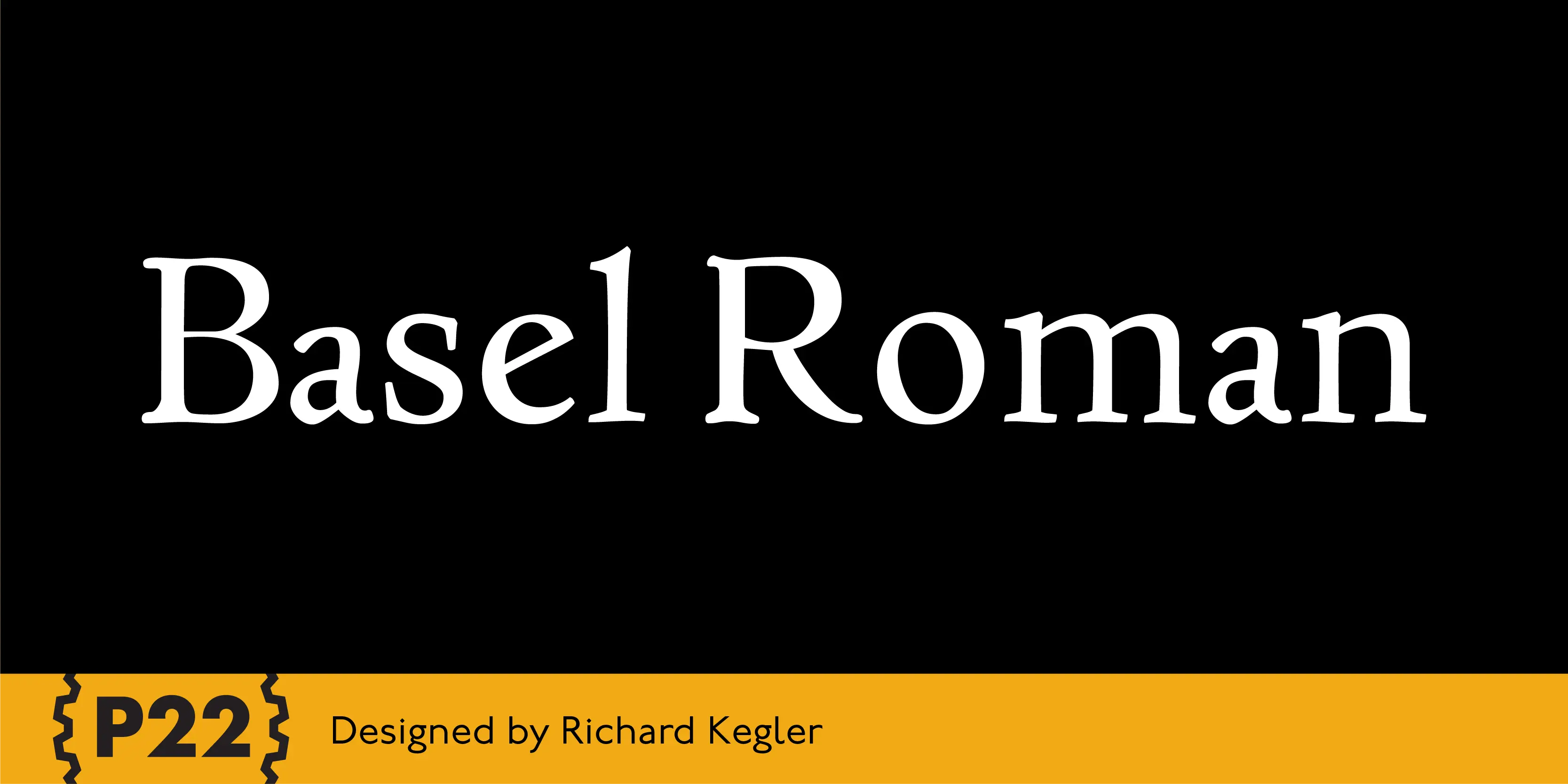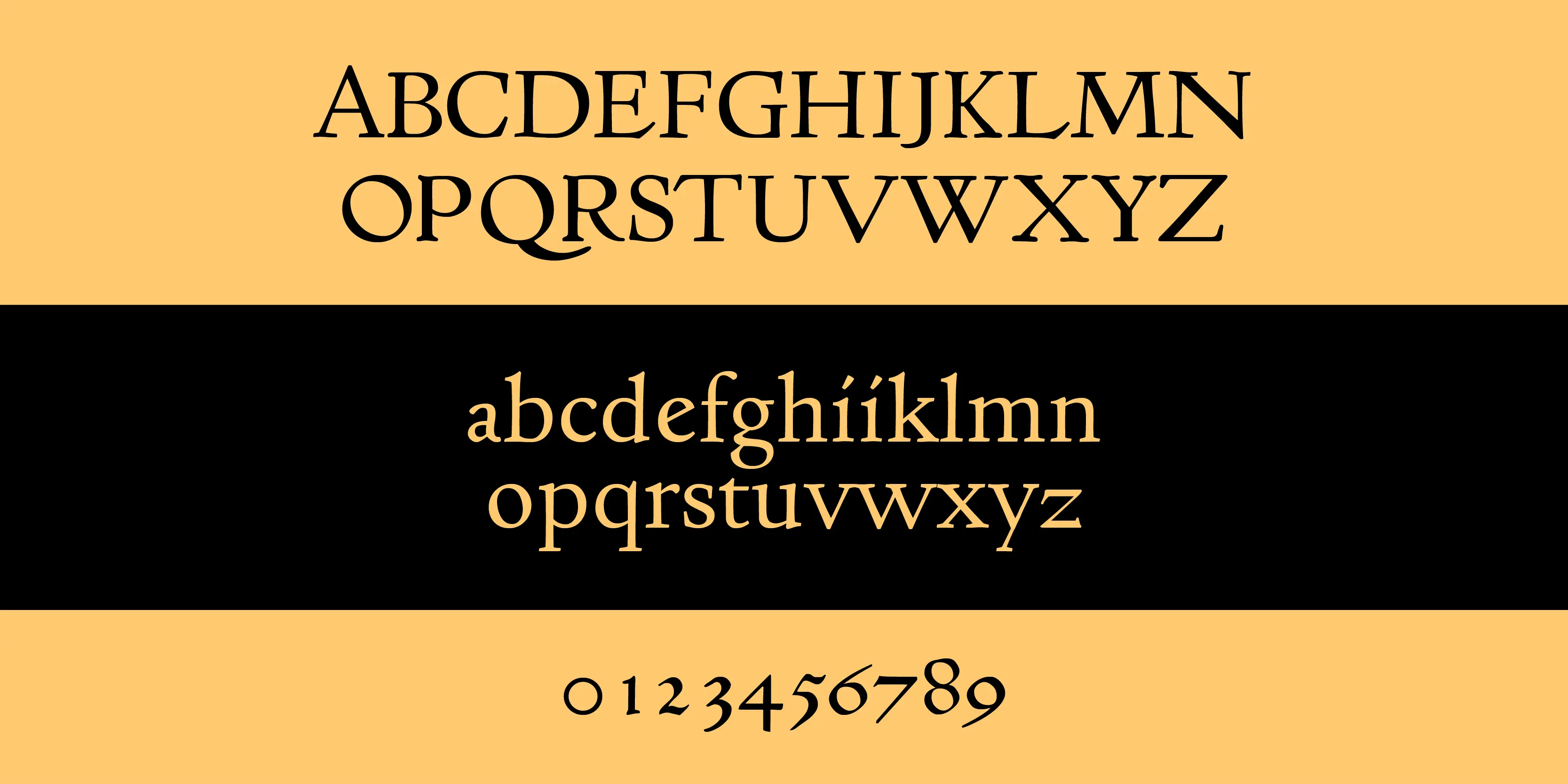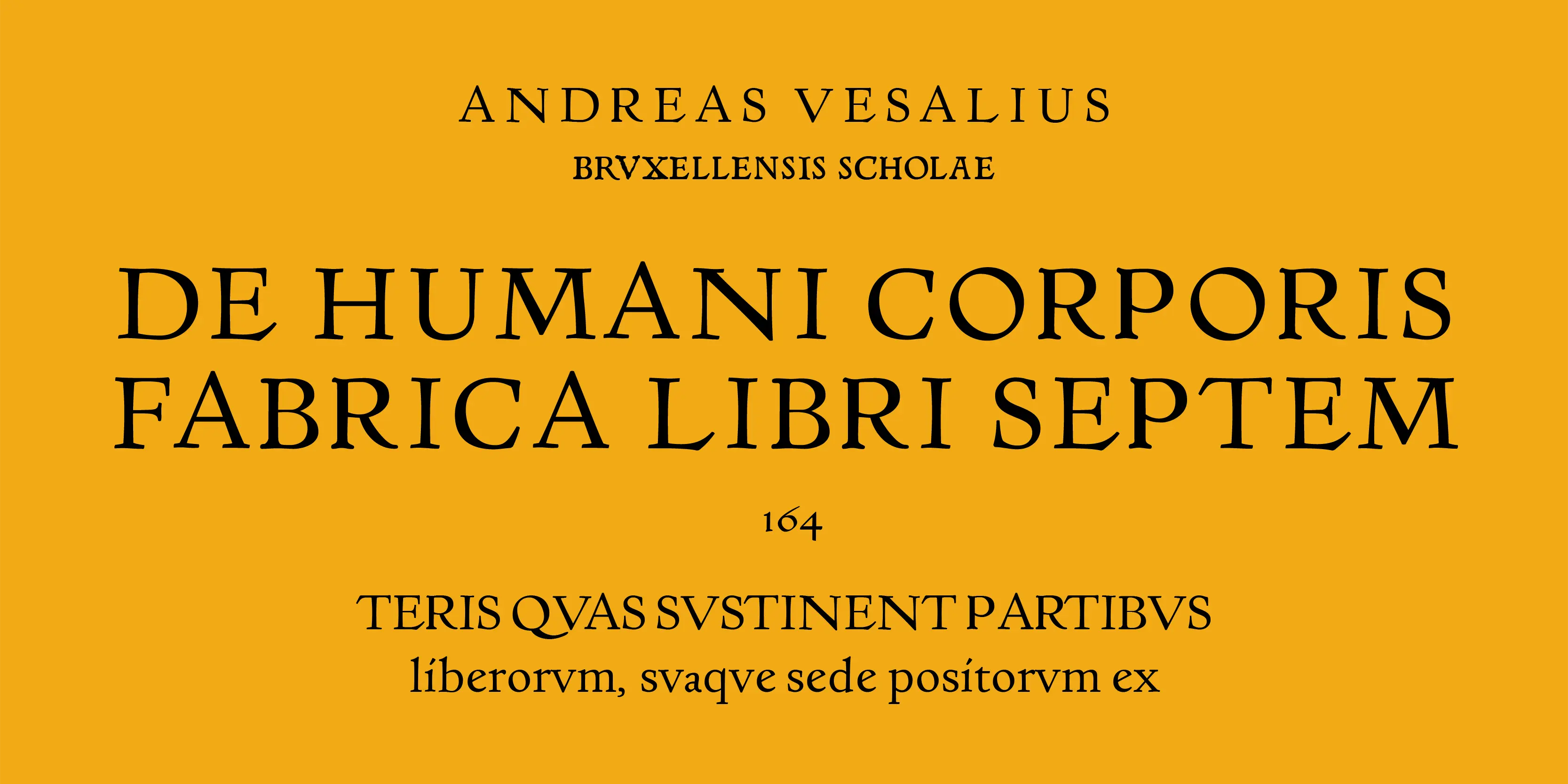
Basel Roman Font
Basel Roman
In mid 2001, P22 was approached by a Daniel Garrison, a Classics scholar at Northwestern University about possibly digitizing a long lost “Garamond” typeface. This font was used by Johannes Herbst (a.k.a. Ioannes Oporinus) in 1543 to publish Andreas Vesalius’ “On the Fabric of the Human Body” (De humani corporis fabrica) in Basel. The story of the development of this font takes a few twists and almost becomes forgotten itself over time. Fourteen years later it is available to the public.
• Small Capitals
• Small Capitals for Capitals